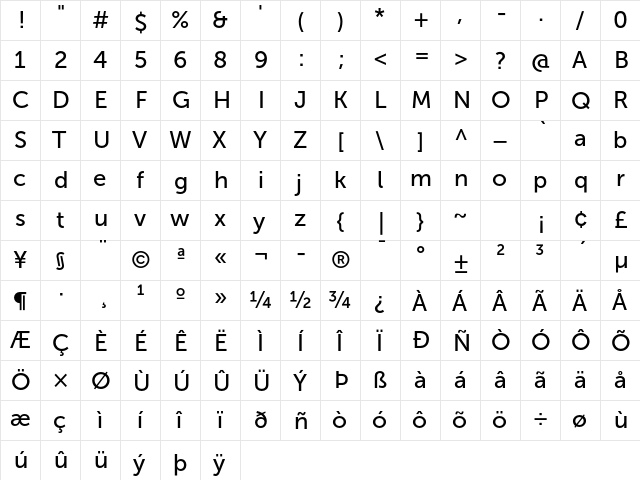
Museo Sans 500
500 · Jos Buivenga Jos Buivenga ·
Design Context for Museo Sans Typeface
Museo Sans is a composed and adaptable typeface that performs quietly and consistently across a wide range of design contexts.